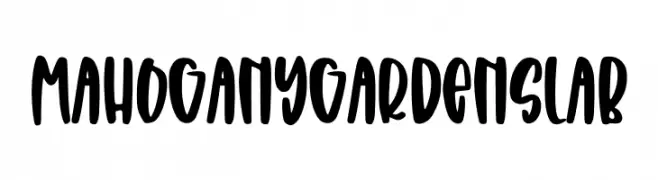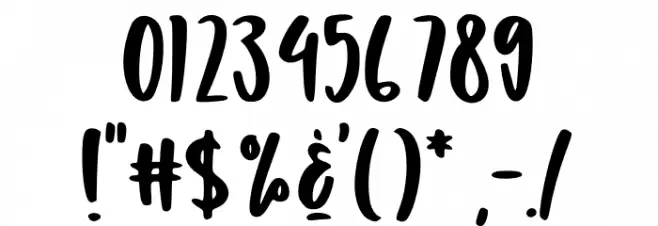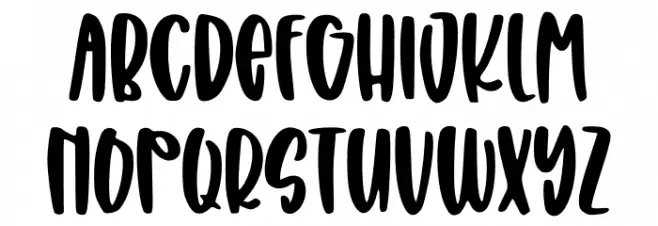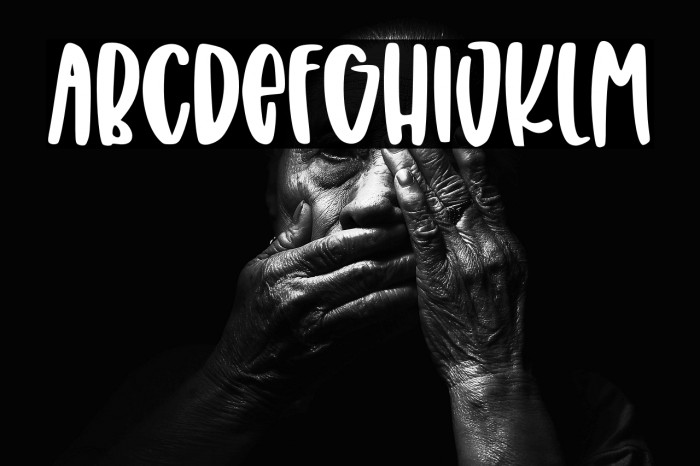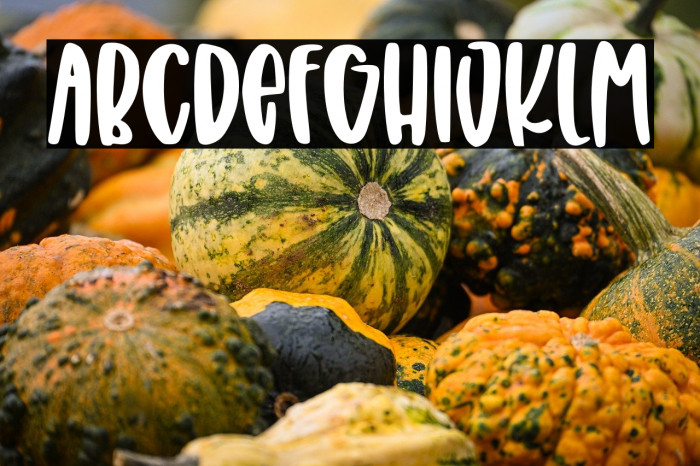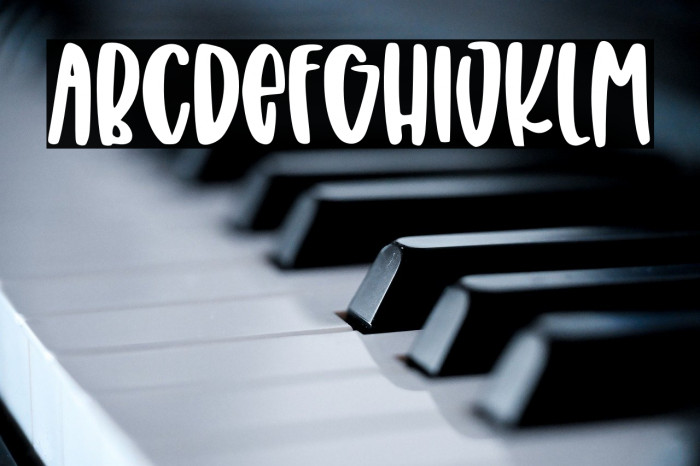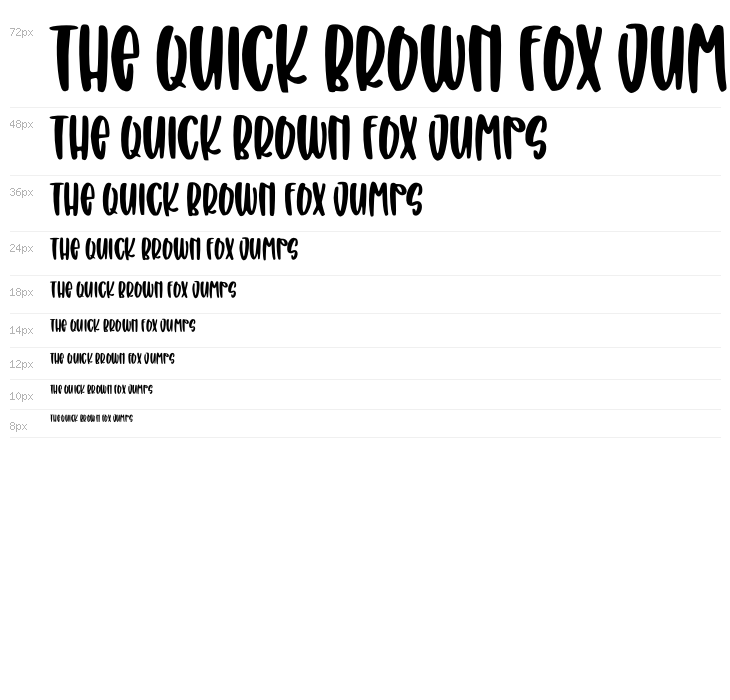
Mahogany Garden Slab Font
Mahogany Garden Slab Description
A bold, playful handwritten font with a casual and friendly appearance. The characters are rounded with a consistent stroke width, giving it a cohesive look.
| Overall Style | Casual, Friendly |
| Use Case | Logos, Headlines, Informal text |
| Proposed Projects | Greeting cards, children's books, casual branding. |